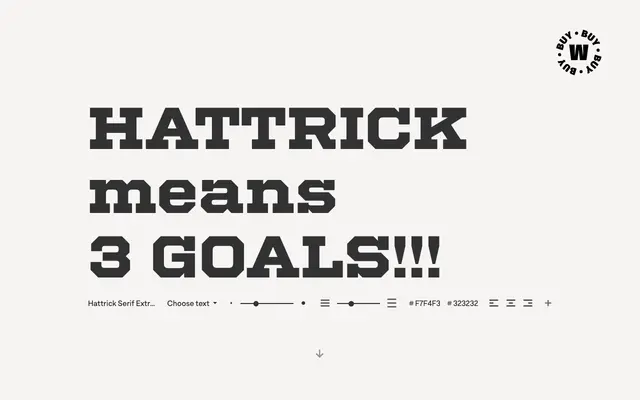
Hattrick
W Type Foundry · Gaspar Muñoz
A 110-style superfamily by Gaspar Muñoz drawing on varsity lettering and retro American sports graphics, with sans, serif and semi subfamilies across five widths.
The family spans Compressed through to Expanded across five weights from ExtraLight to Extrabold, each with italics, giving designers a wide typographic range within a single athletic idiom. The Semi subfamily introduces a near-monospaced rhythm that adds technical tension while the Serif branch brings a more editorial register. Aimed at sports branding, packaging and identity work where consistent visual impact is needed across scales.
A display superfamily drawing on varsity lettering and retro sports aesthetics, with three subfamilies spanning sans, serif and a semi hybrid with monospaced rhythm. Its expressive width range and athletic references place it firmly in the display category.